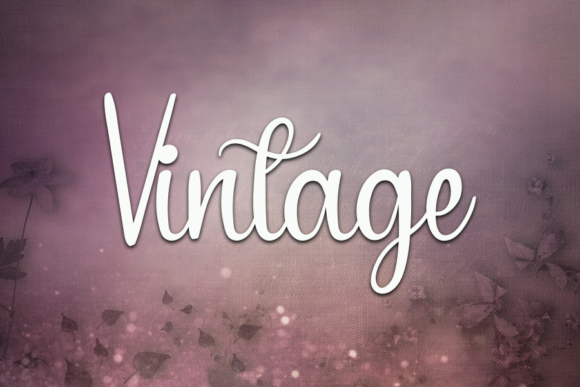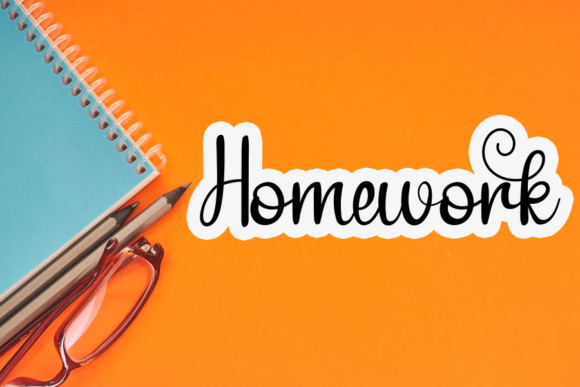
Samuella Font
db-ku.com - Script & Handwritten -- Samuella is a distinct graceful script font. Fall for its ravishing style and use it to create gorgeous designs. Add this font to your most creative ideas, and notice how it makes them stand out!